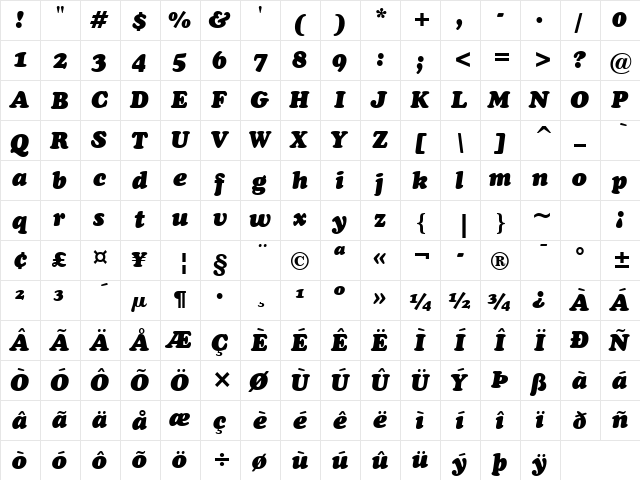
Cooper BlkItHd BT Black Italic
Design Context for Cooper BlkItHd BT Typeface
Cooper BlkItHd BT offers clean, dependable letterforms without strong stylistic allegiance, making it a practical choice for designers who need flexibility. Its italic angle brings a sense of urgency and motion to the letterforms.
Pro Tip: Try Cooper BlkItHd BT for annotation and caption copy alongside an upright companion — the contrast in angle creates a dynamic but ordered typographic system.